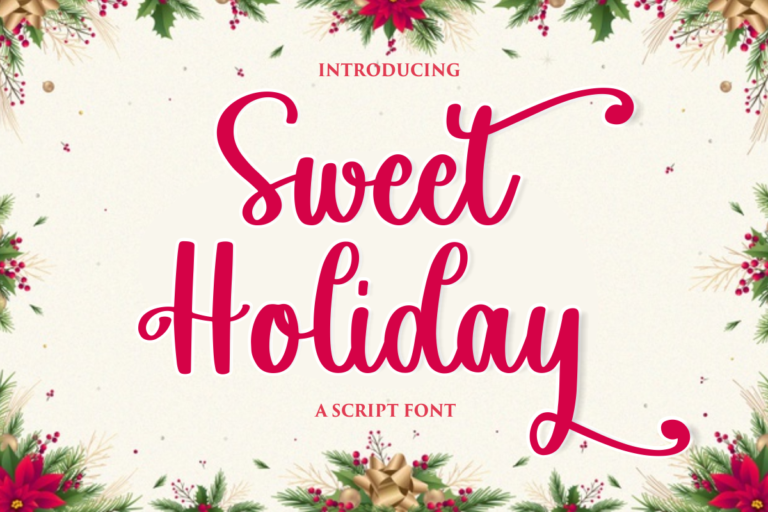
- Sweet Holiday – Script Font
Sweet Holiday
Sweet Holiday – Font is a new stylish script font. It’s perfect for logo,branding, tittle, social media posts, advertisements, product packaging, product designs, label, photography, watermark, special event,magazine,web design,etc.
Sweet Holiday ( Uppercase, Lowercase )
Beginning and ending Swashes
Extra Swahes
Middle Swashes